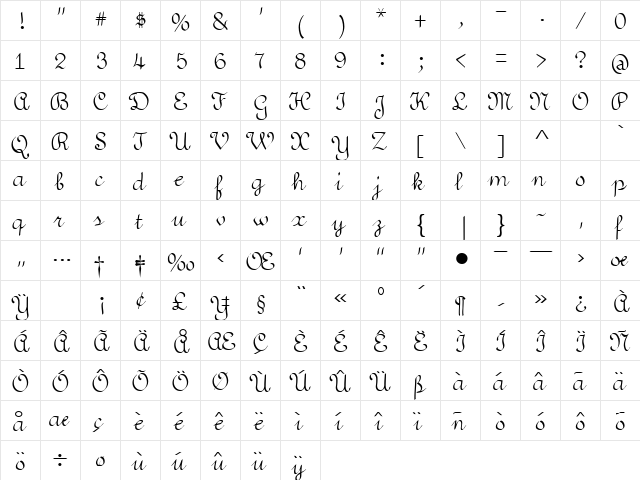
Aubergine Regular
Design Context for Aubergine Typeface
Aubergine is a composed and adaptable typeface that performs quietly and consistently across a wide range of design contexts.